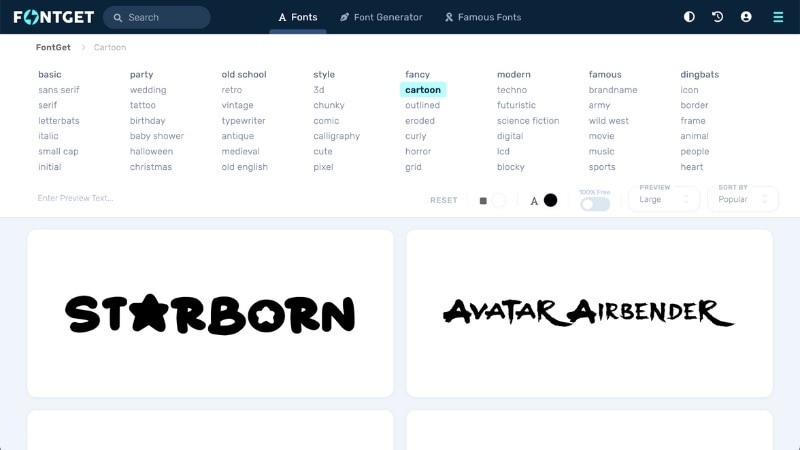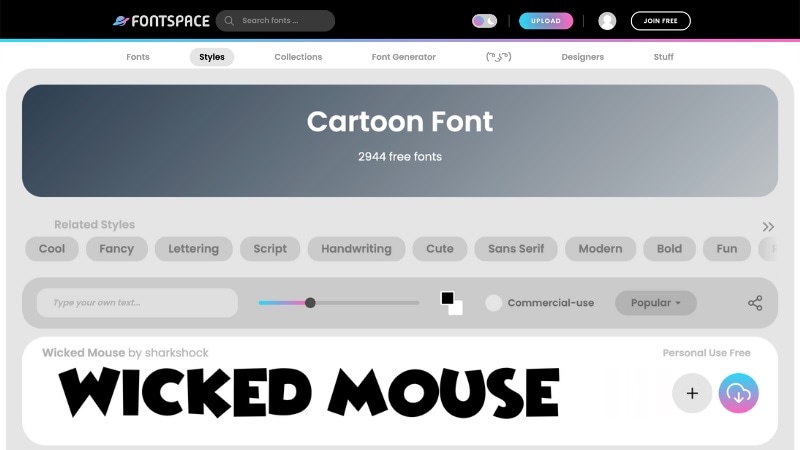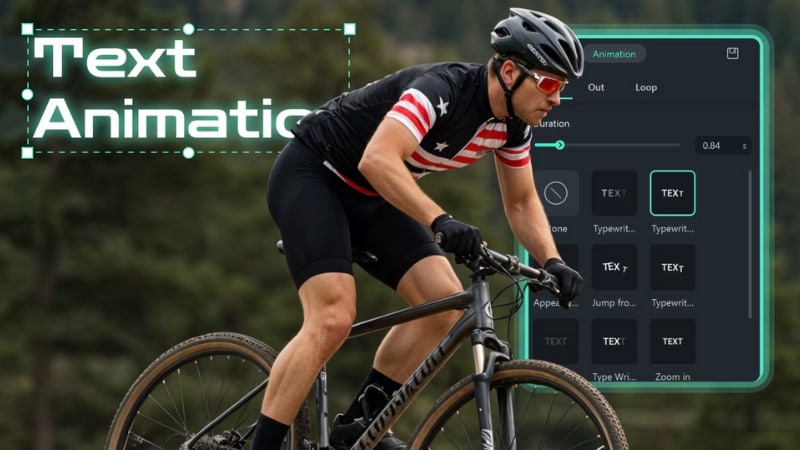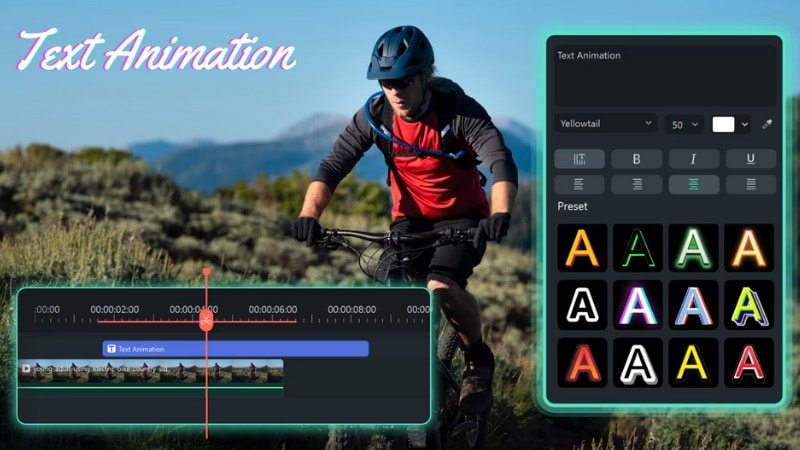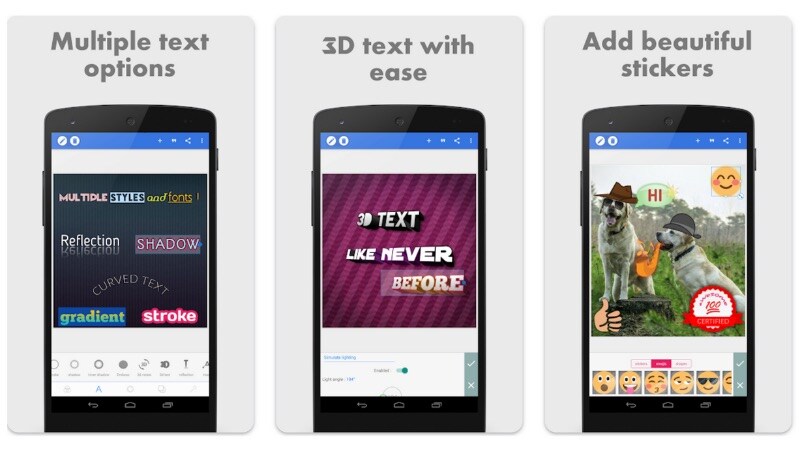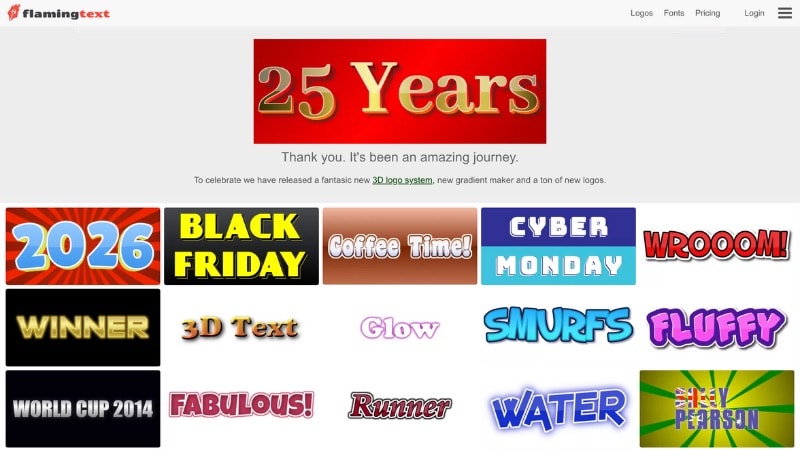
10 Best Cartoon Font Generators to Create Playful Text
The best cartoon font generator depends on your project medium: Wondershare Filmora is optimal for animated video titles across desktop and mobile, PixelLab handles offline 3D text generation on Android, and FlamingText provides instant transparent PNG templates via the web.
● Phonto serves as the primary iOS alternative to the Android-exclusive PixelLab for offline mobile editing, though neither application supports text animation or video exports.
● To integrate custom typography into external editing software, you must specifically source raw TTF or OTF font files from directory websites like FontGet or FontSpace.
Do you want your video titles or thumbnails to look more fun and expressive? A cartoon font generator can help you create colorful, animated text styles that fit YouTube intros, kids’ videos, or playful edits.
A cartoon text generator makes it easy to shape words that look like they came straight from a comic or cartoon show. You can adjust colors, outlines, and effects to match your video’s mood without needing design skills.
This guide shares the 10 best cartoon text makers that save time and add character to your projects. Plus, it also gives you tips on how to choose the right one for your next video. Let’s jump in!
Our Top 3 Cartoon Font Generator Picks
1. Wondershare Filmora - Best All-in-One Cartoon Text Maker for Creators
Filmora is one of the best cartoon font generators for its seamless mix of text animation and video editing. It comes with ready-made title presets, bright outlines, and comic-style fonts that match fun and creative video themes. Its built-in AI tools also help speed up text editing.
2. Pixellab - Best Mobile Cartoon Text App
PixelLab is a handy cartoon text generator for mobile users who want fast, creative results. It lets you add 3D text, outlines, gradients, stickers, and custom fonts to make comic-style words stand out. You can also tweak backgrounds or draw shapes for more playful layouts.
3. FlamingText - Best for Quick Cartoon Logos
FlamingText is an online cartoon text maker that focuses on speed and simplicity. It offers many logo-style templates with colorful outlines, glow effects, and gradient fills. You can choose your style, replace the text, and download it for external use in minutes.
Cartoon Font Generators Comparison Chart
Every cartoon font generator serves a different purpose. Here’s a quick comparison that can help you find the one that matches your platform, project type, and preferred creative features.
Tool Platform Best For Highlight Feature
Wondershare Filmora Windows, Mac, Android, and iOS. Creators who want an all-in-one cartoon text maker with built-in animation and AI tools. Rich text templates and customizable animation presets.
PixelLab Android Mobile creators who need a cartoon text generator for quick edits, thumbnails, or meme captions. 3D text and customizable effects with gradient fills, stickers, and custom fonts.
FlamingText Web Creators who need quick cartoon-style text or logos for video intros, thumbnails, or banners. Ready-made cartoon text templates with easy export for easy use in any editor.
Adobe Express Web, Android, and iOS. Creators and small teams who need quick, on-brand cartoon text and video designs with minimal setup. Animated text templates with AI-powered design tools and one-tap background removal.
TextStudio Web Beginners who need a cartoon font generator for quick 3D or comic-style text online without installing software. Wide range of cartoon and bubble text effects with export for external use.
FontGet Web Creators who want free cartoon and comic-style fonts to use in external editors. Large library of downloadable cartoon fonts with instant preview and filtering options.
PicsArt Web, Android, and iOS. Creators who want an all-in-one cartoon text generator and photo/video editor for social content. AI background remover and text tools with customizable templates and stickers.